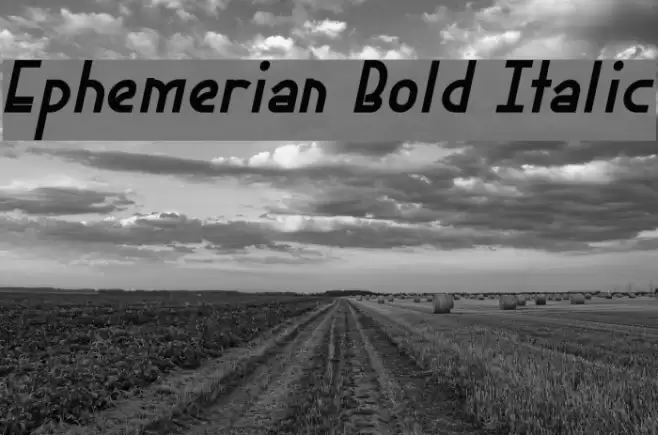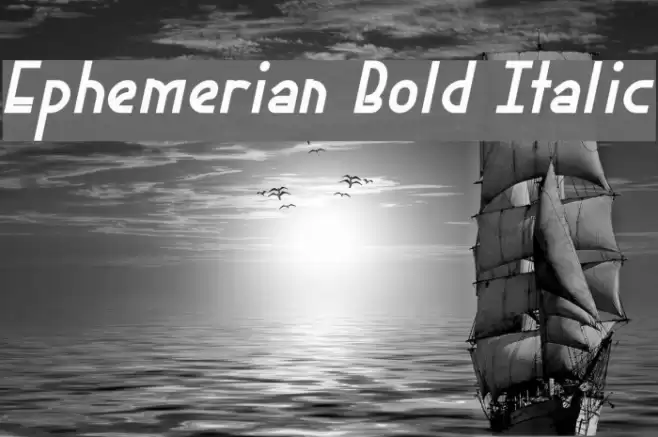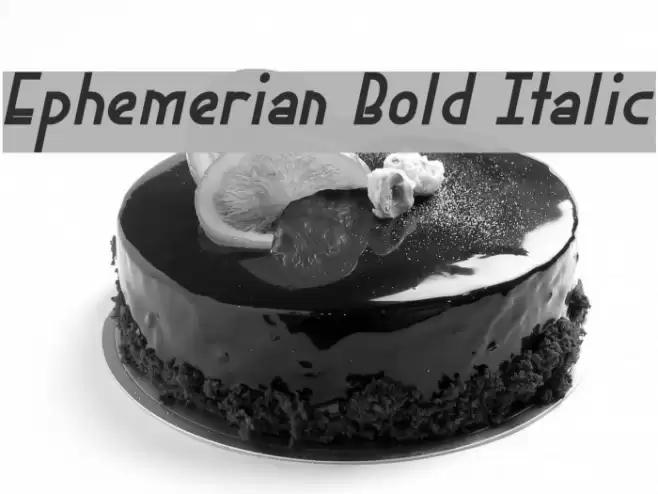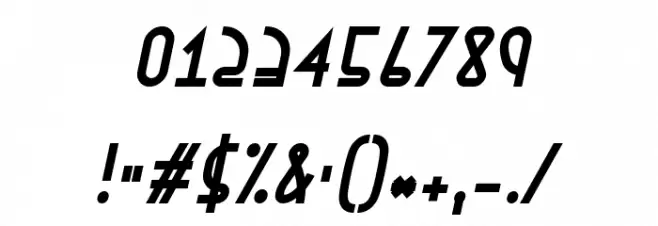
Ephemerian Bold Italic Font
Ephemerian Bold Italic Description
This font features a bold and italicized style, characterized by its dynamic and forward-leaning posture. The letters are designed with a modern flair, showcasing a unique blend of sharp angles and smooth curves. The uppercase letters maintain a strong presence, while the lowercase letters offer a more playful and approachable feel. Numbers are crafted with a consistent boldness, ensuring readability. Special characters are distinct and well-integrated, adding versatility to the font. Overall, this font exudes a sense of energy and movement, making it suitable for a variety of creative applications.
A bold, italicized font with a modern and dynamic style from Retro fonts.
- Proposed Projects: Ideal for branding, advertising, posters, and creative digital content.